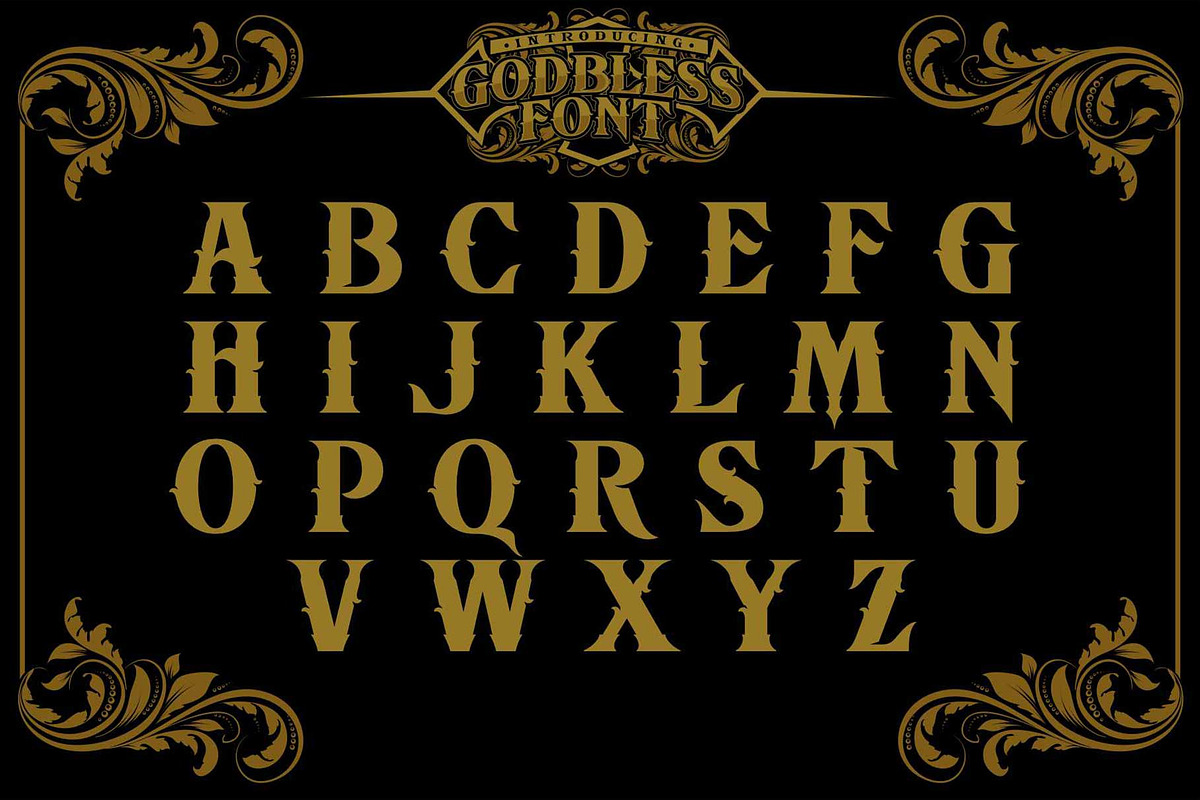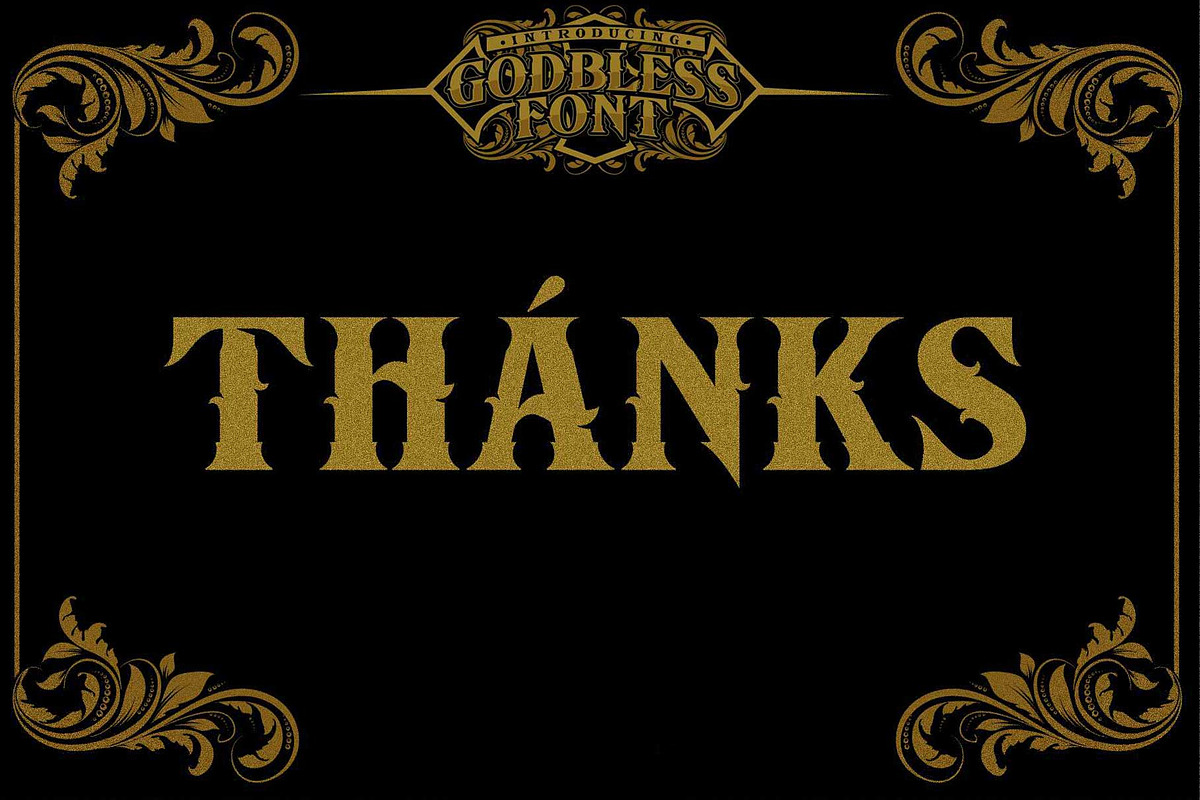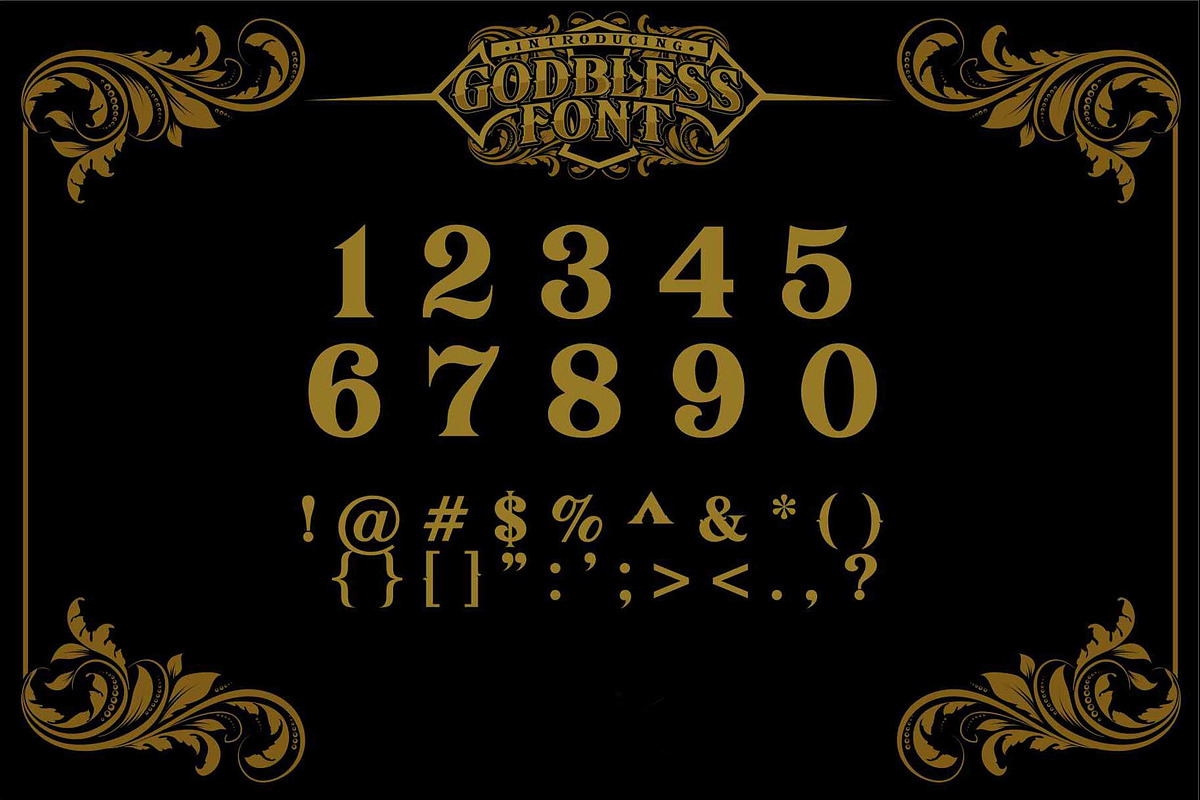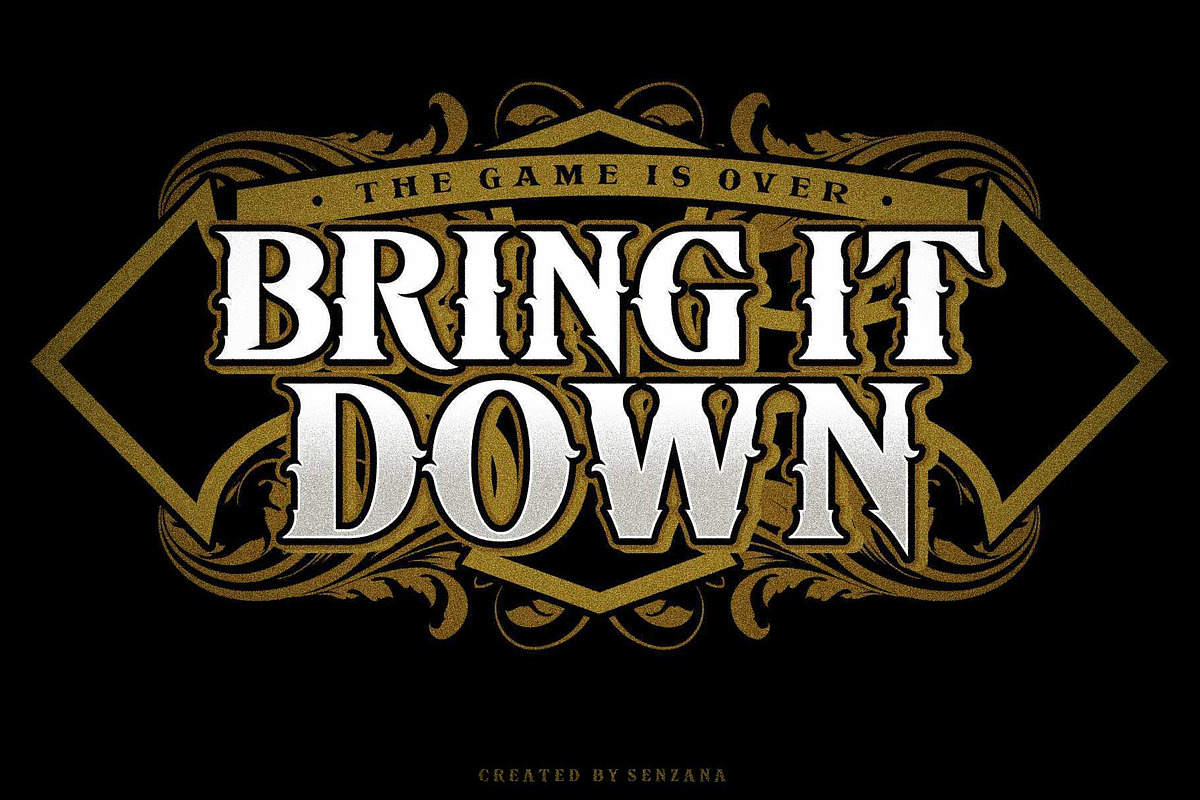
GODBLESS FONT
GODBLESS FONT this is a font with a modern gothic style, it is very suitable to explore the creativity of your work in the fields of logos, bands, posters etc.
Why GODBLESS FONT is worth a look
GODBLESS FONT by senzana fits naturally into Branding, posters, packaging, typography.